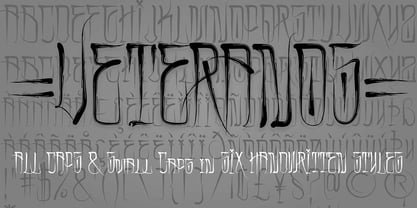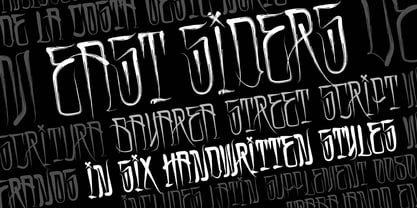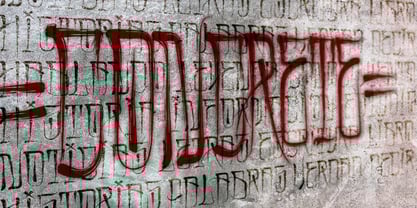
San Jose Graffiti
The San Jose Graffiti Font Family was designed by Matthew Napolitano and published by Graffiti Fonts. San Jose Graffiti contains 6 styles and family package options. More about this family
The San Jose type family provides an array of variants representing a simplified, bay area slant on traditional Chicano American street scripts. The styles in this set can be used in all caps for the most authentic appearance or in a more typographically traditional small caps format. This set also includes latin supplement support and a robust character set in six styles. 3 Stroke variants: Regular, Rough & Bold each have a leaned back, traditional slant variant.